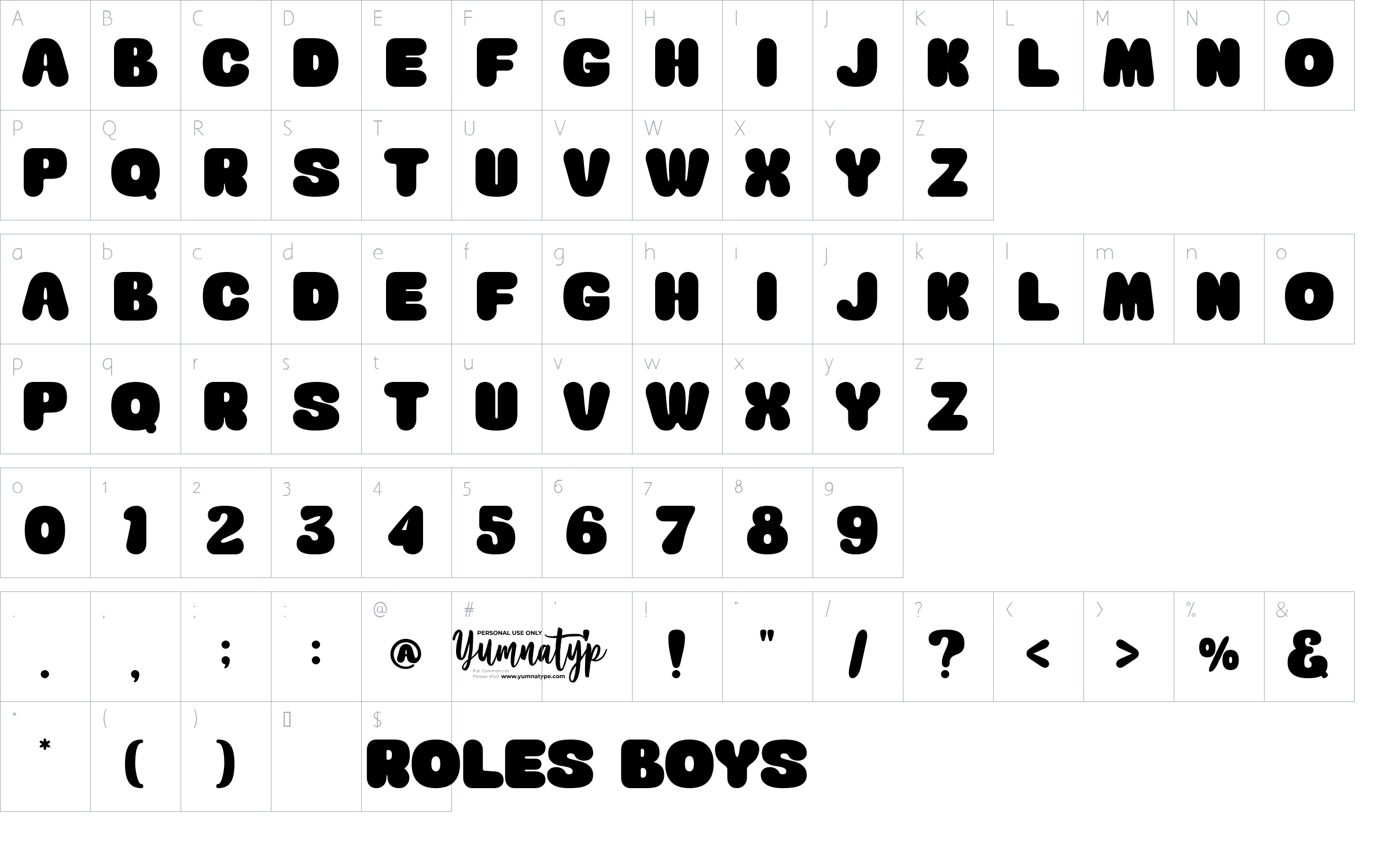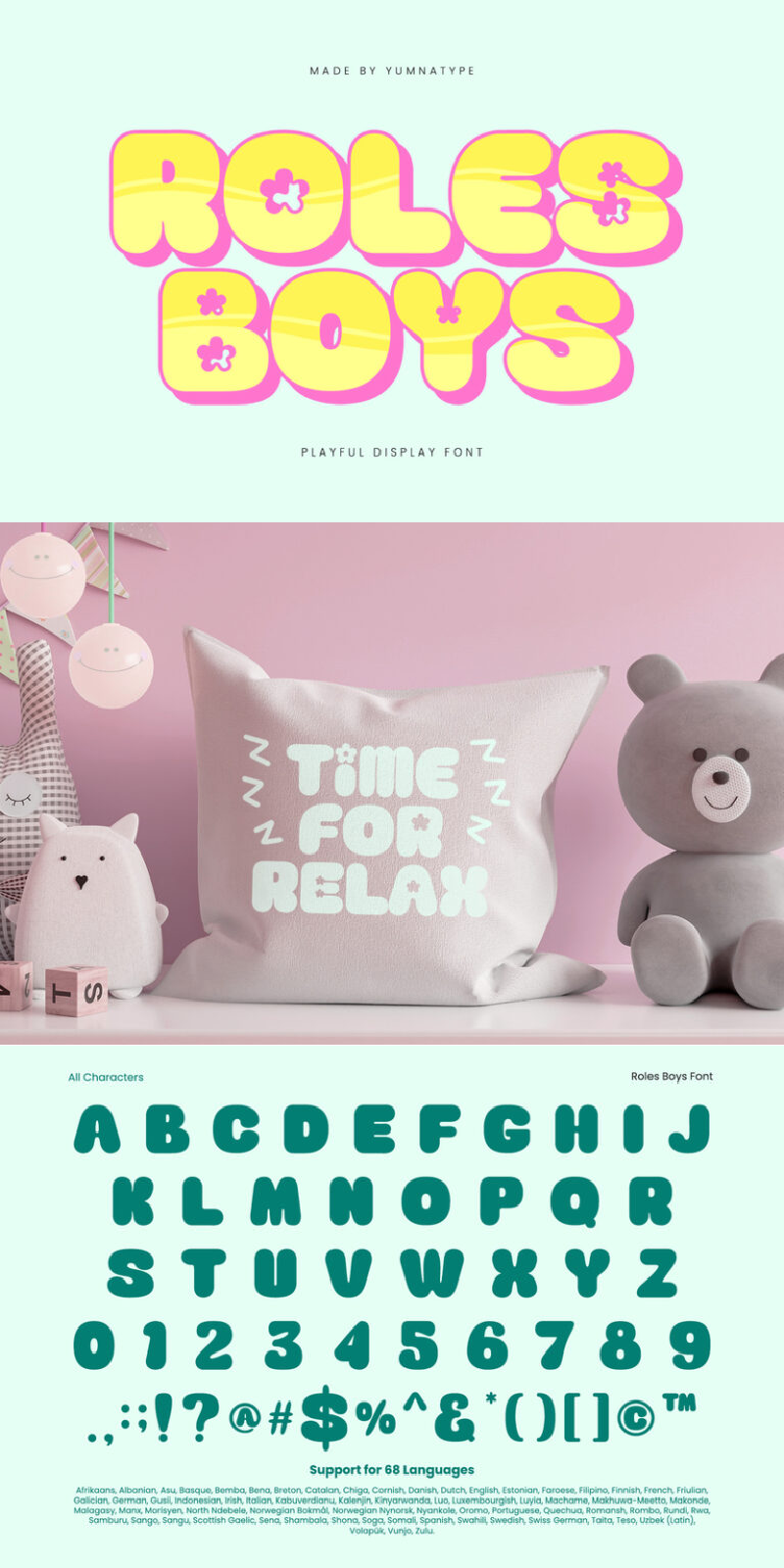
Roles Boys Font
About Roles Boys
Roles Boys is a lively display font crafted uppercases, showcasing a playful style. The rounded shapes give it a soft and friendly appearance. Roles Boys combines boldness with a sense of whimsy, ensuring your designs stand out with both impact and charm. Its thick, rounded characters are suitable to convey joy and creativity in a bold and memorable way. In addition, enjoy the features here.